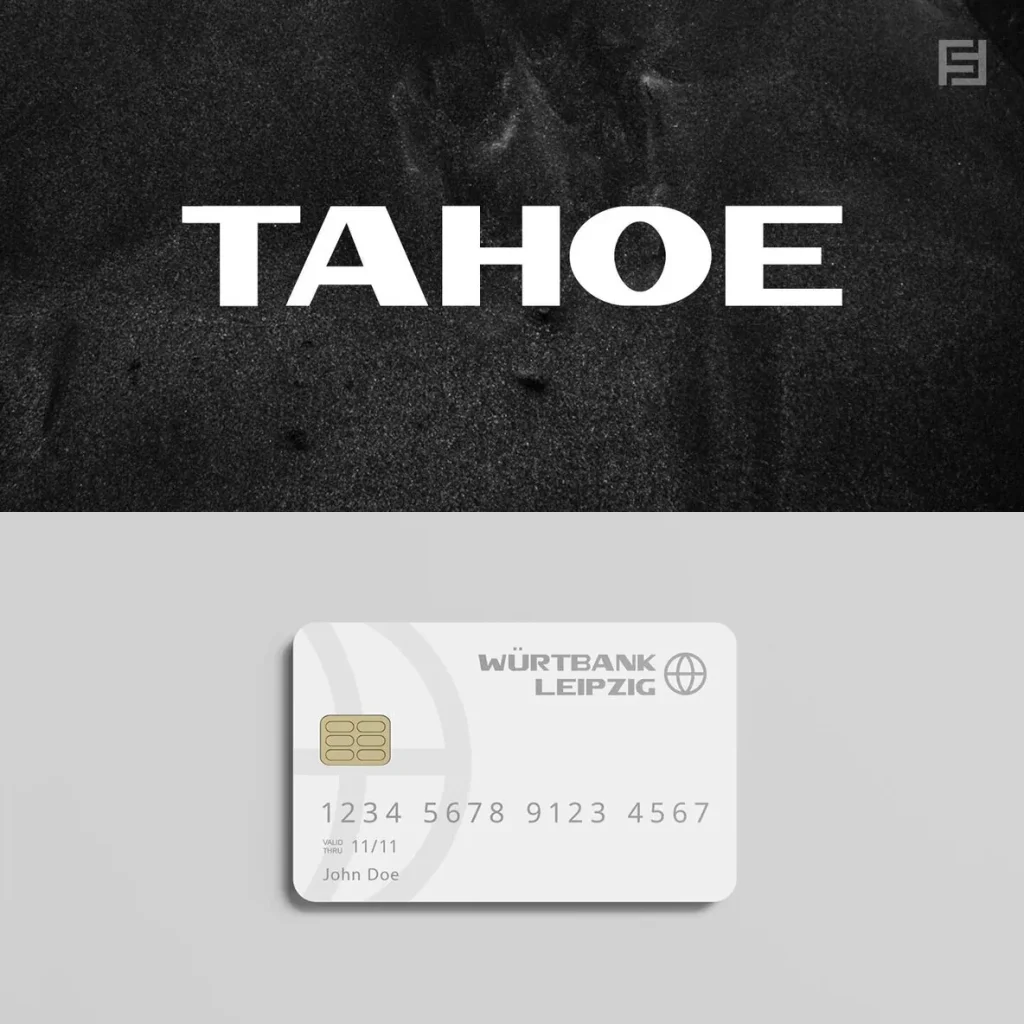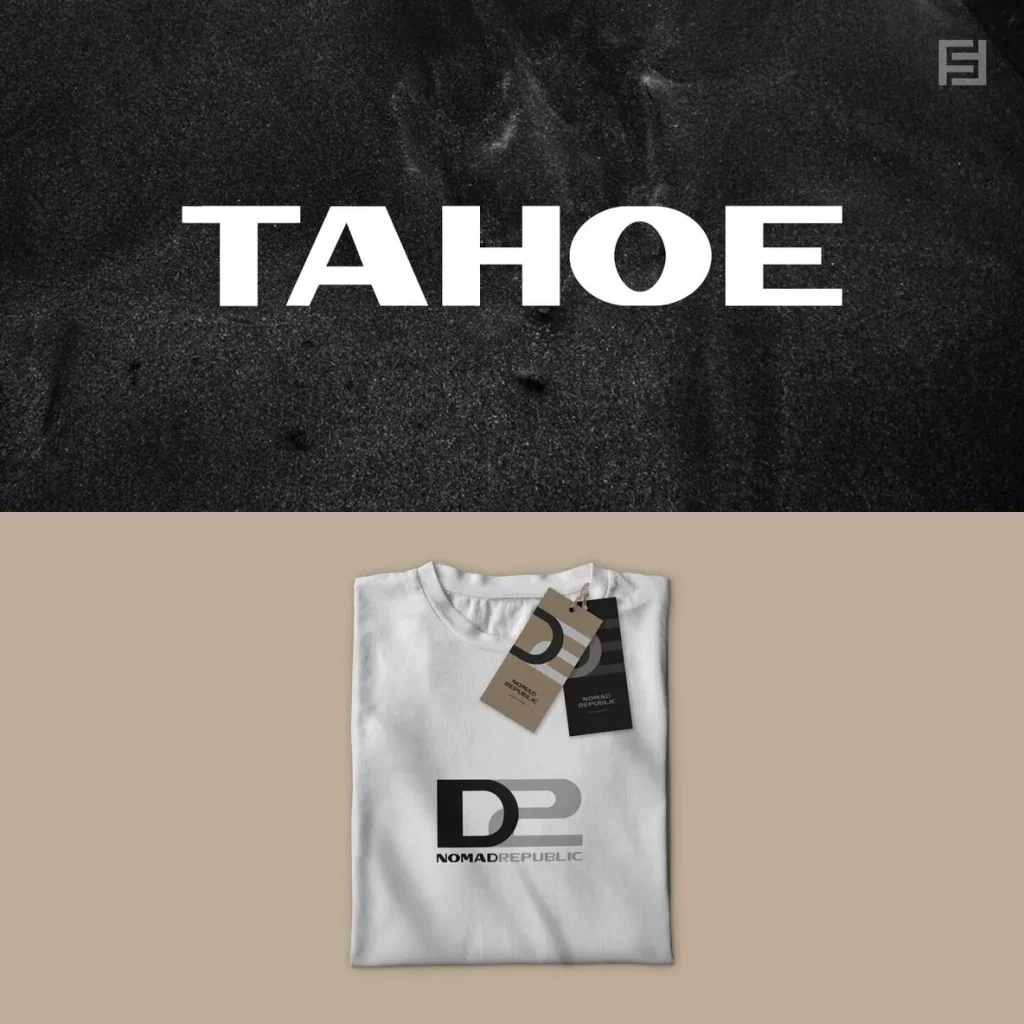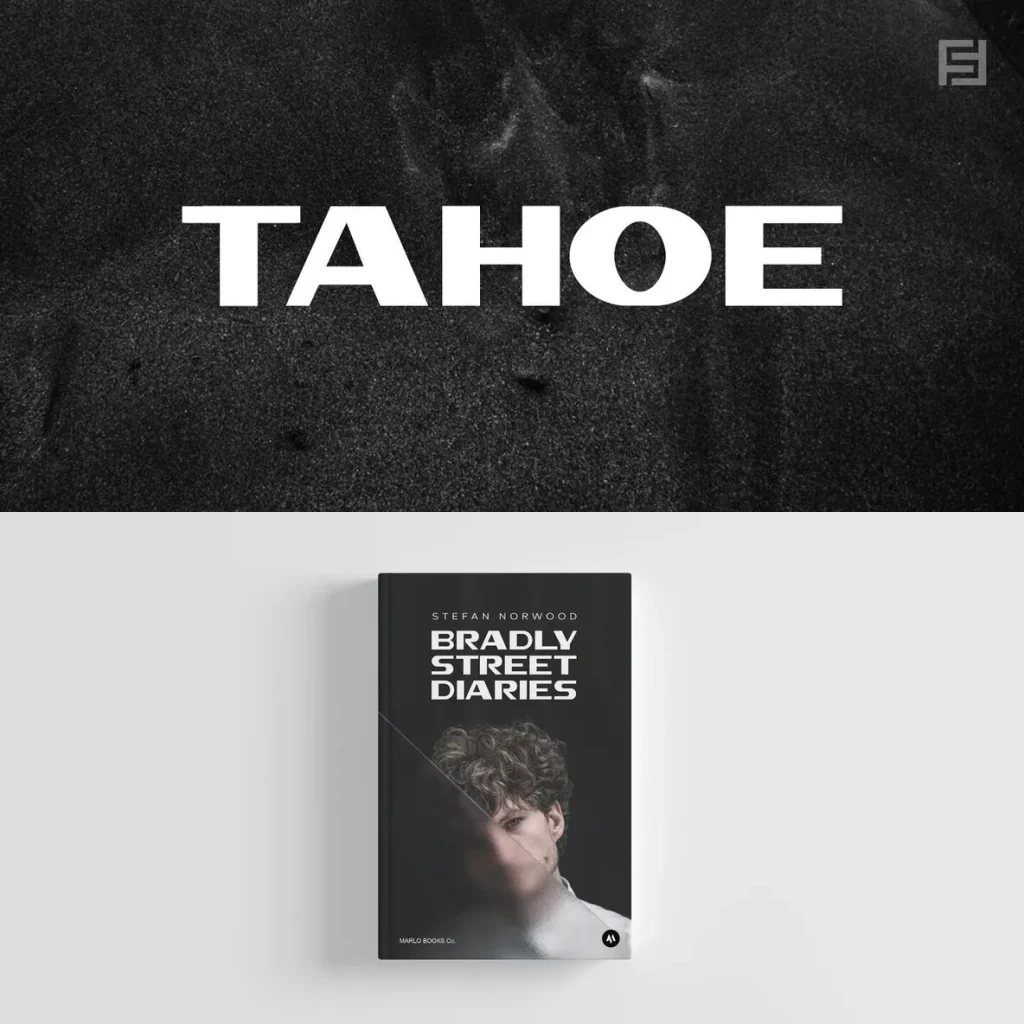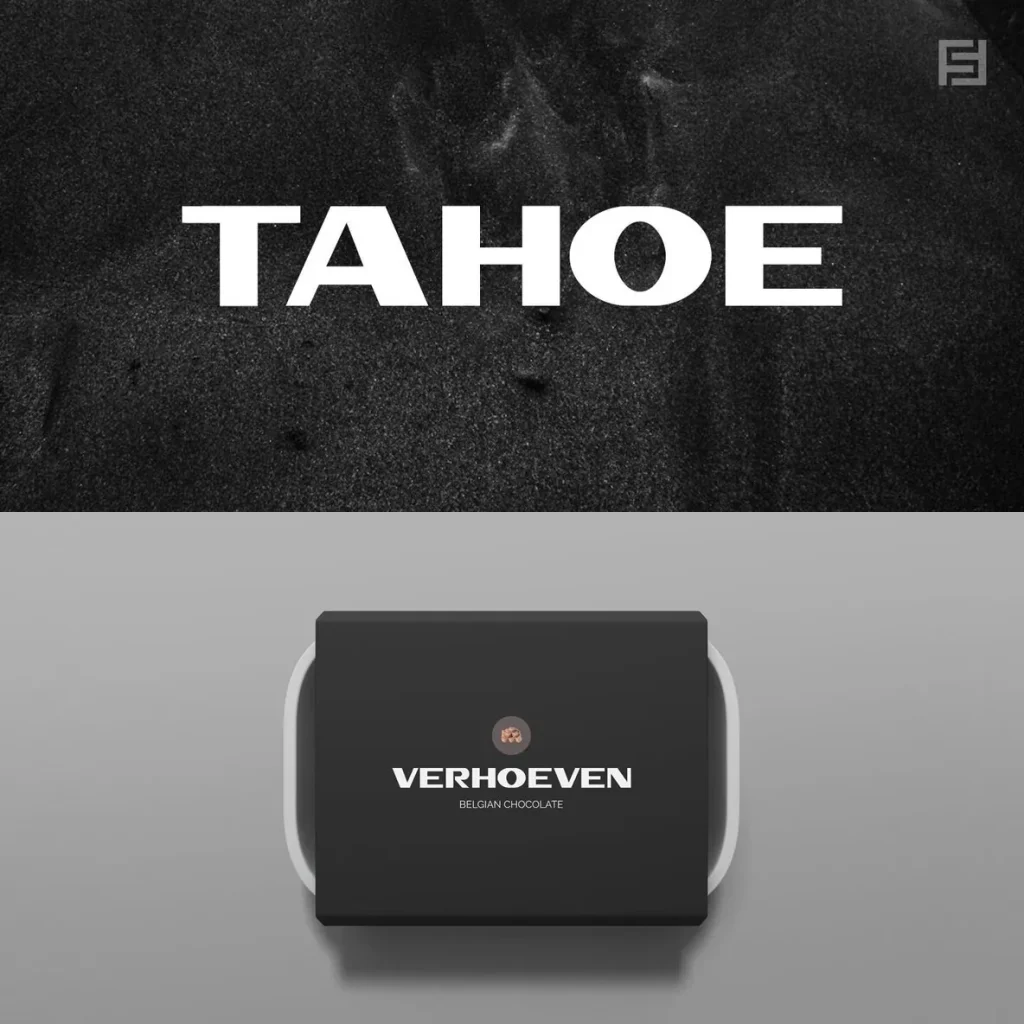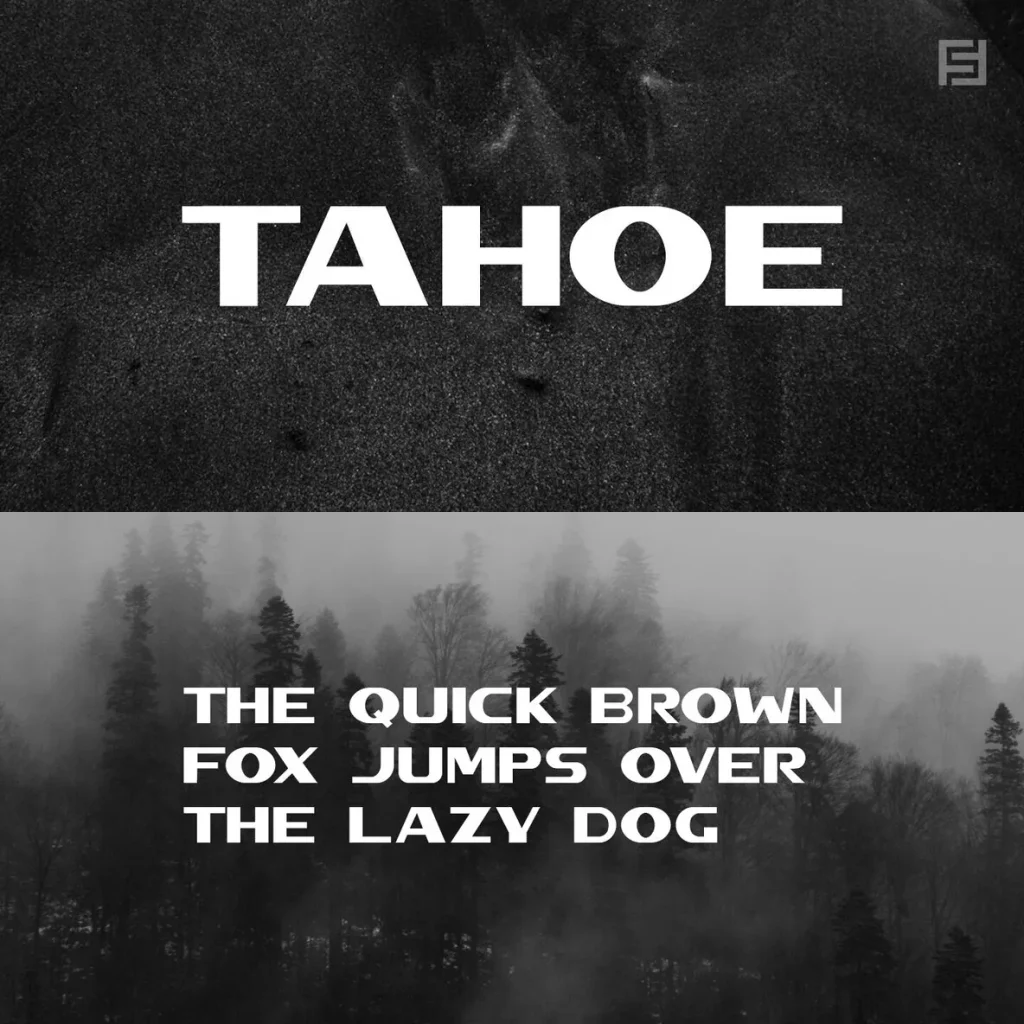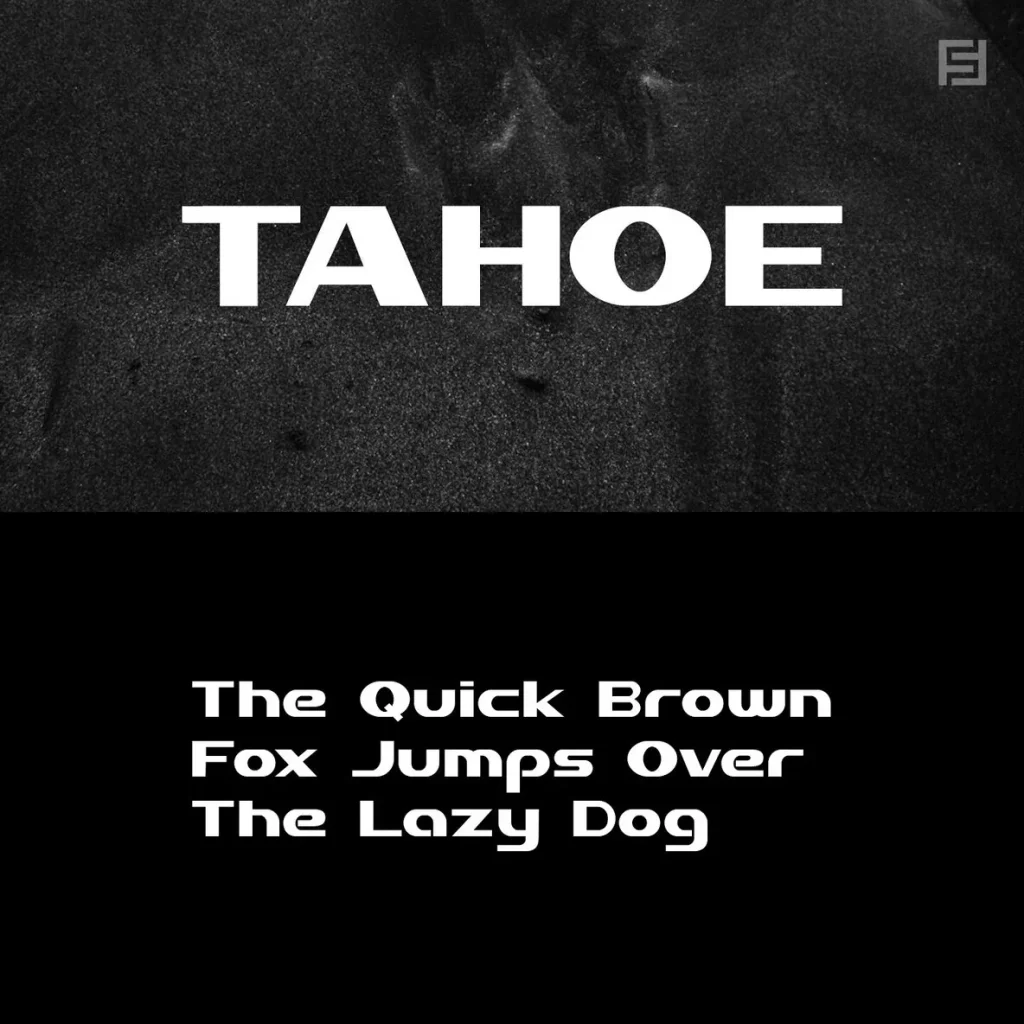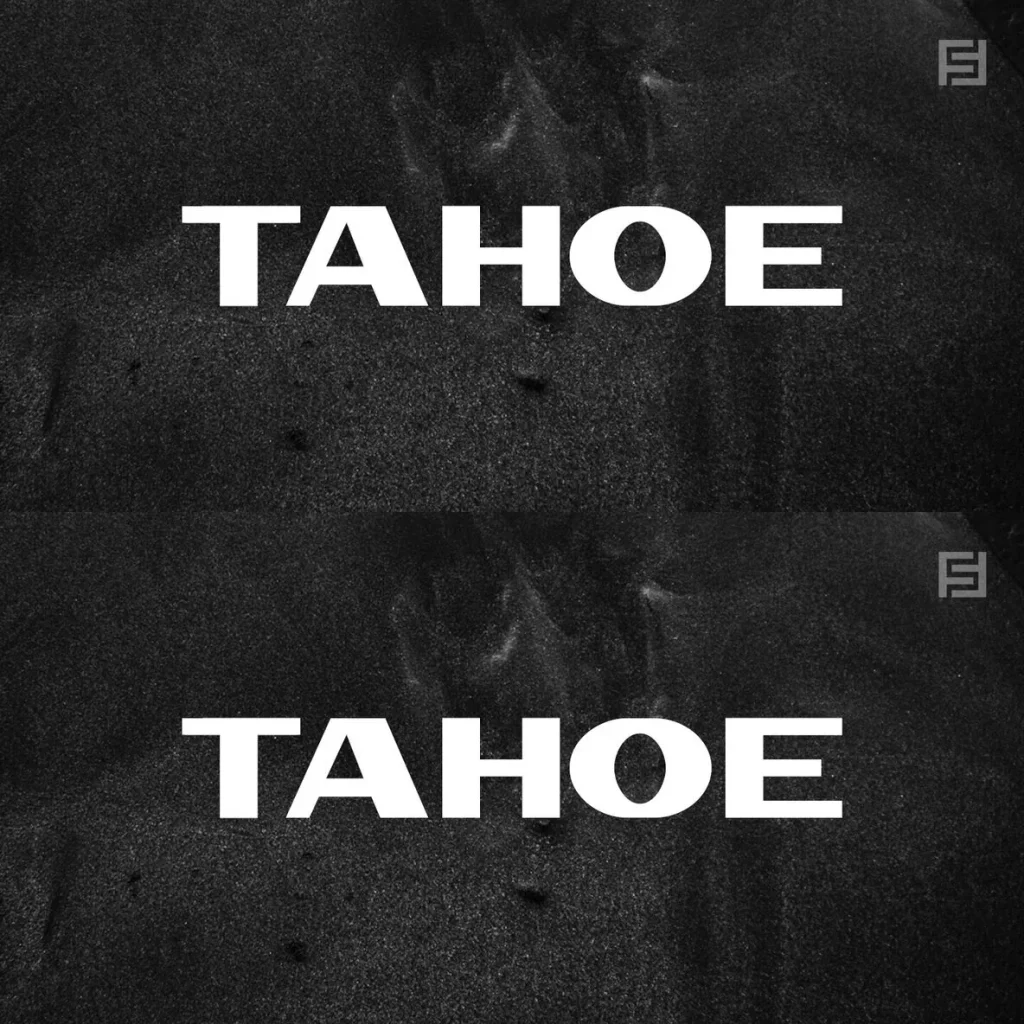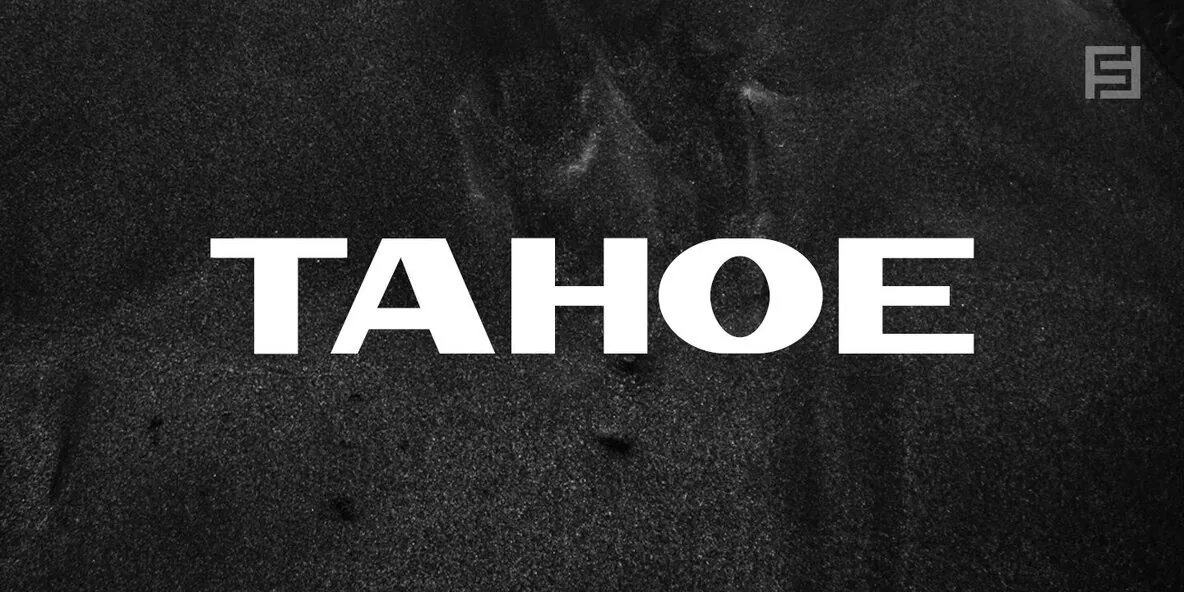
Tahoe — Display with Distinct Character
Tahoe is a unique display typeface with distinctive forms, modern styling, and an expressive visual character. Its carefully designed shapes give each setting a memorable presence, making it well suited to typography that needs a strong first impression.
Use Tahoe for branding, headlines, posters, packaging, and creative projects where bold visual personality matters. The typeface brings clarity and character together, offering a confident choice for designers who need display typography with recognizable form and contemporary appeal.